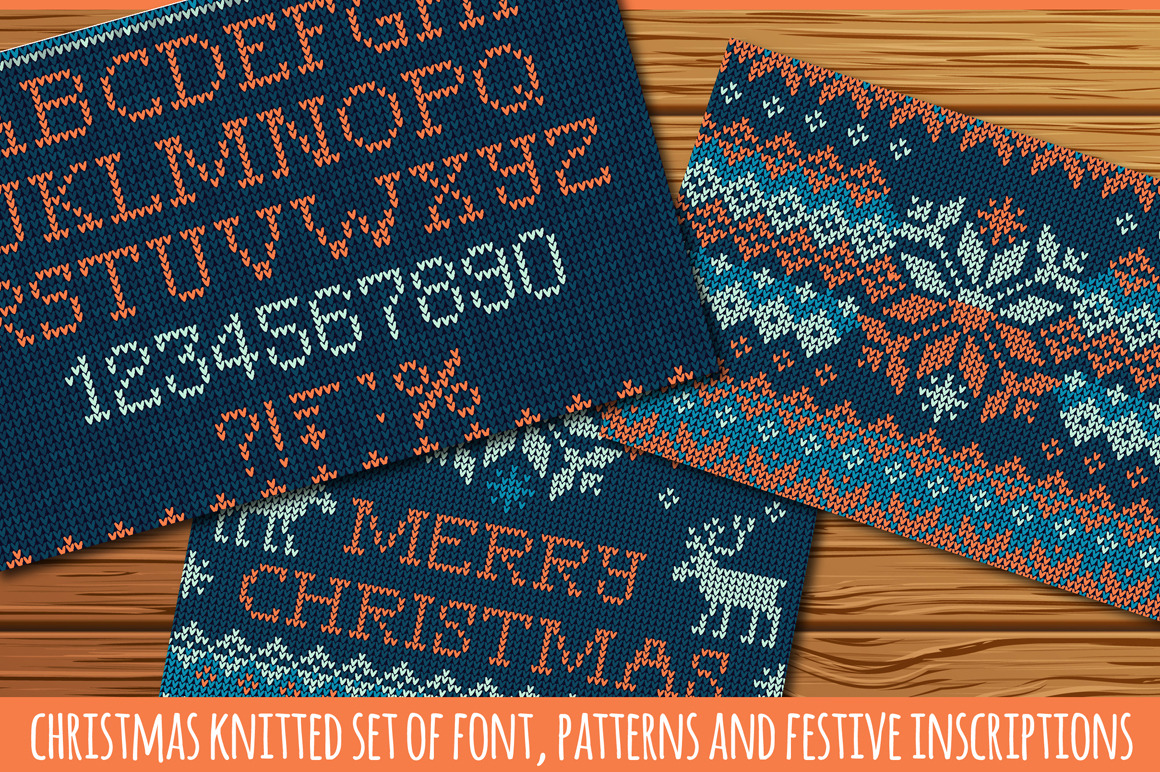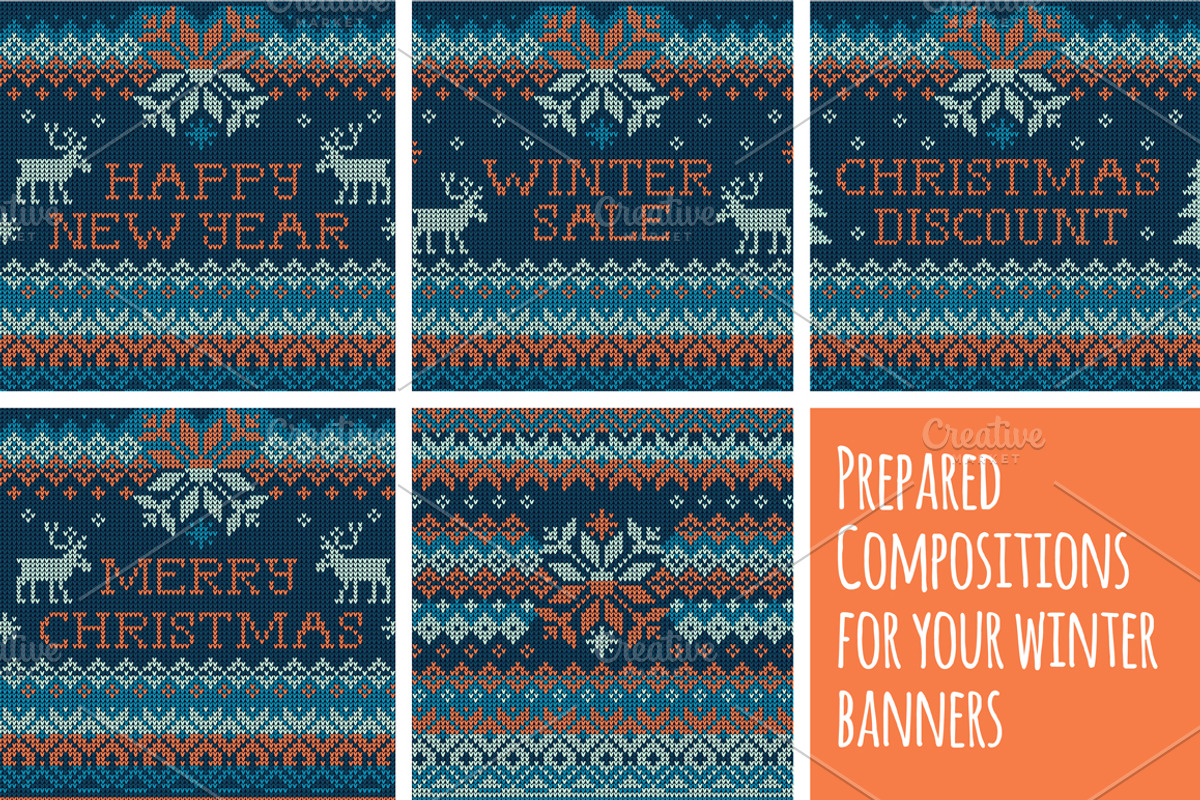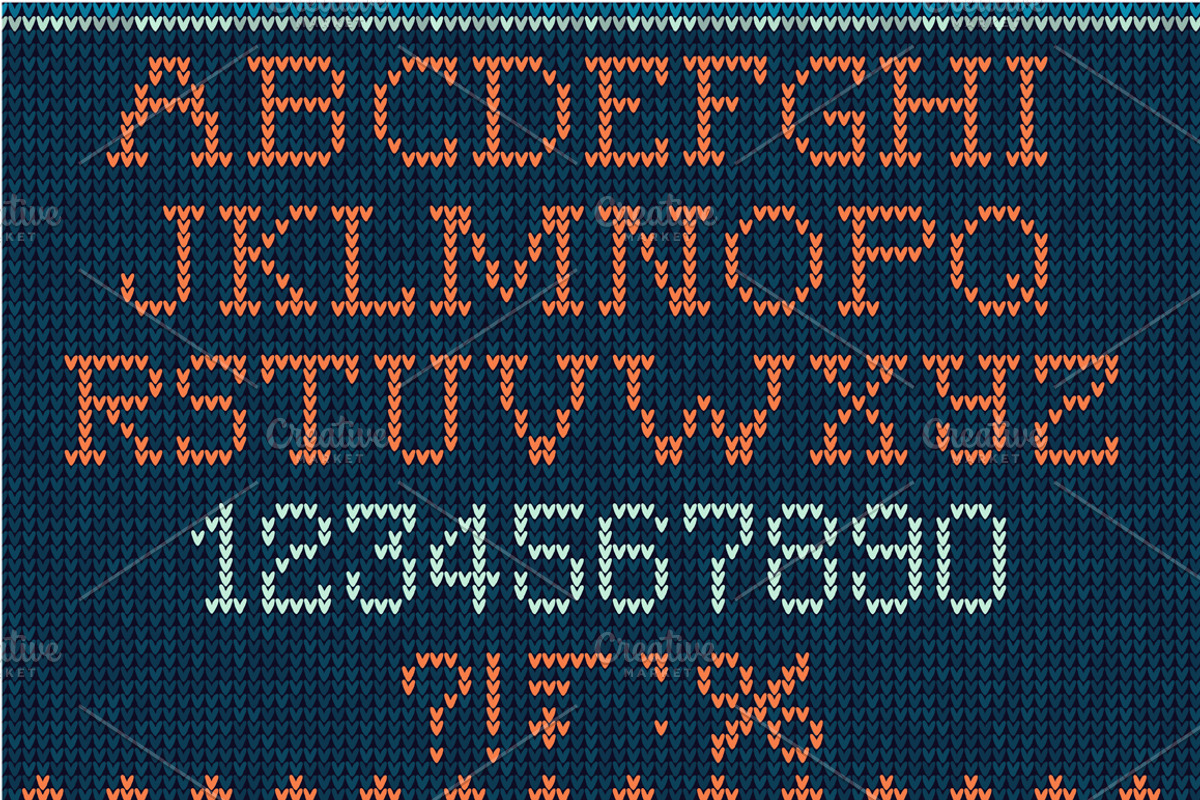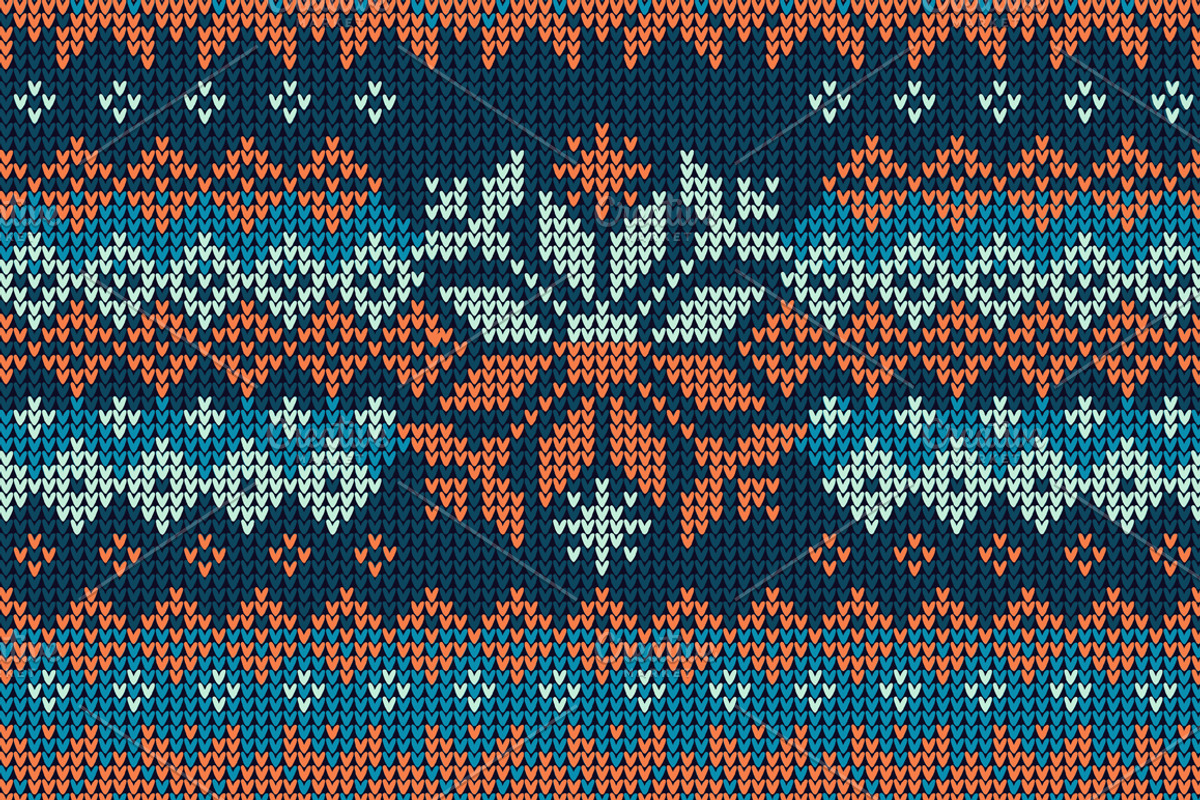
Knitted FONT and patterns (b)
Cozy Knitted Christmas Font and Patterns Bundle
Evoke the warmth of a Nordic winter with our "Cozy Knitted Christmas Font and Patterns Bundle". This versatile collection features knitted letters and charming punctuation marks, perfect for adding a personal touch to your holiday designs. Embrace the festive spirit with pre-designed inscriptions like "Merry Christmas", "Happy New Year", and more.
- Delight in the delightful discounts of the season with inscriptions for "Christmas Discount" and "Christmas Sale".
- Set a wintry scene with "Winter Sale" and embrace the charm of Scandinavian design with white knitted ornaments.
- Get creative with five prepared compositions, ready to grace your winter banners with a cozy, homemade feel.
Experience the joy of creating heartwarming, handcrafted designs with this charming bundle. Every element is thoughtfully designed to infuse your projects with the magic of a Nordic winter.
- Craft personalized holiday cards and invitations with the knitted font for a warm and inviting touch.
- Create captivating social media posts and banners with the seamless patterns to draw attention to seasonal promotions and events.
- Add a cozy, homemade feel to your website or blog headers, setting a festive tone for your audience.
- Elevate your winter-themed merchandise, from apparel to home decor, with these delightful knitted patterns.
Embrace the enchanting spirit of the holidays with our "Cozy Knitted Christmas Font and Patterns Bundle". Elevate your designs with the heartwarming touch of handcrafted knitwork.